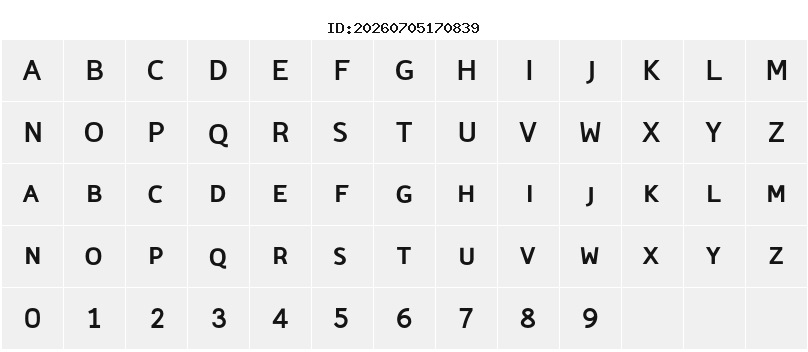
Domestos98 Kaps Preview
• Font Name: Domestos98 Kaps
• Full Font Name: Domestos98-BoldKaps
About Domestos98 Kaps.otf
Domestos98 Kaps.otf is a modern, elegant sans-serif font designed for ultimate readability and visual harmony. Perfect for branding, headlines, web design, and print materials.